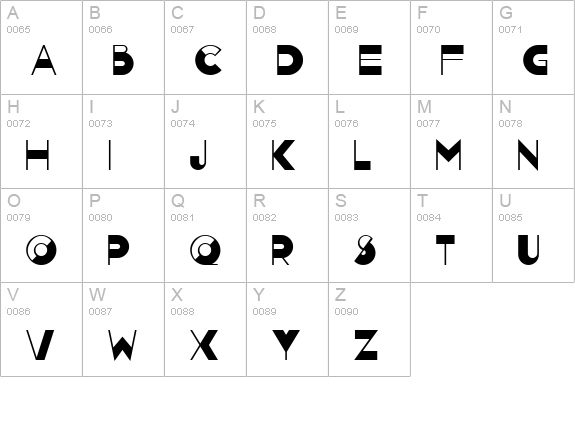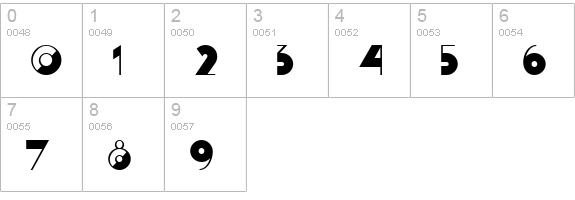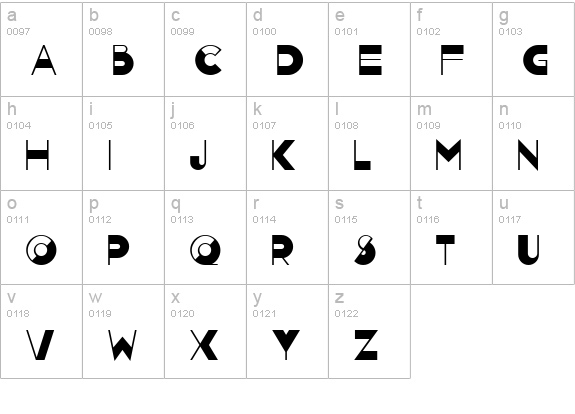
Nightcap NF Font Details
Nightcap NF is a sleek and modern font designed for luxury branding and elegant designs. With its sophisticated and stylish appearance, this font is perfect for creating eye-catching logos, invitations, and social media graphics. The sleek lines and smooth curves of Nightcap NF exude a sense of sophistication and class, making it an ideal choice for high-end projects. The best part about Nightcap NF is that it is completely free to download! You can get your hands on this premium font without having to spend a dime. Simply head over to FontsMarket.com and start using Nightcap NF in your designs today. With its timeless elegance and versatility, Nightcap NF is sure to elevate your projects to the next level.